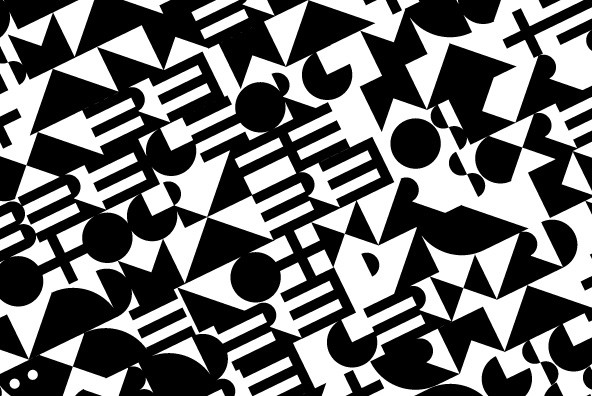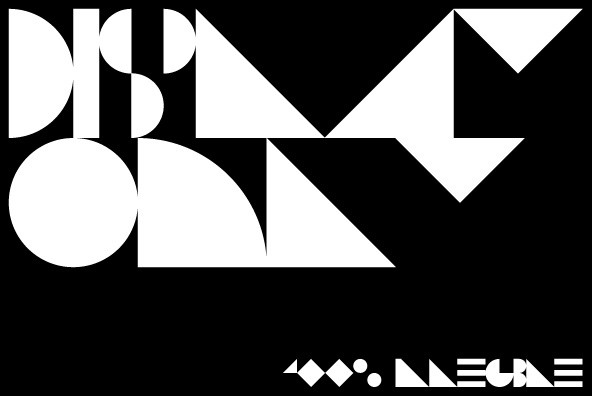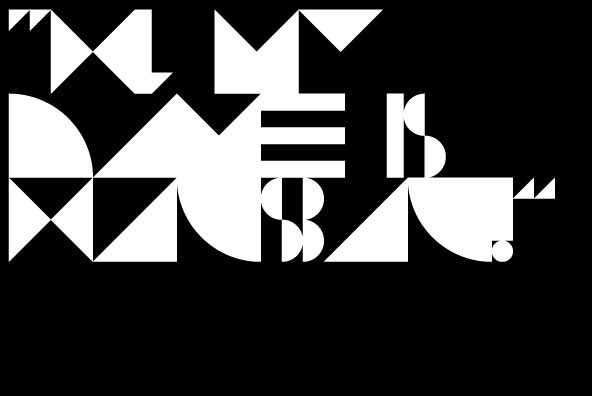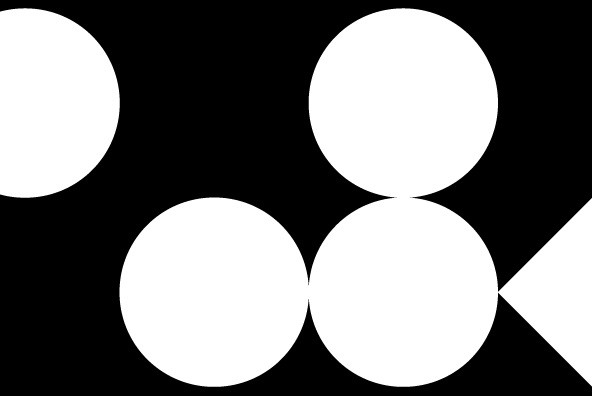
Hausbau
Foundry: FaceType
Hausbau is a radical geometric font, inspired by the German Bauhaus. The glyphs are rather shapes than letters. Absolutely perfect for uncompromising typographic experiments.